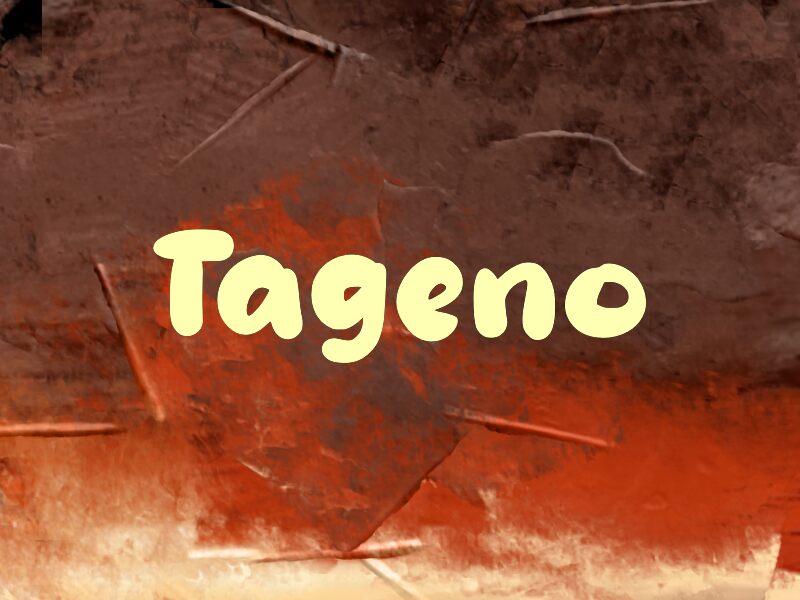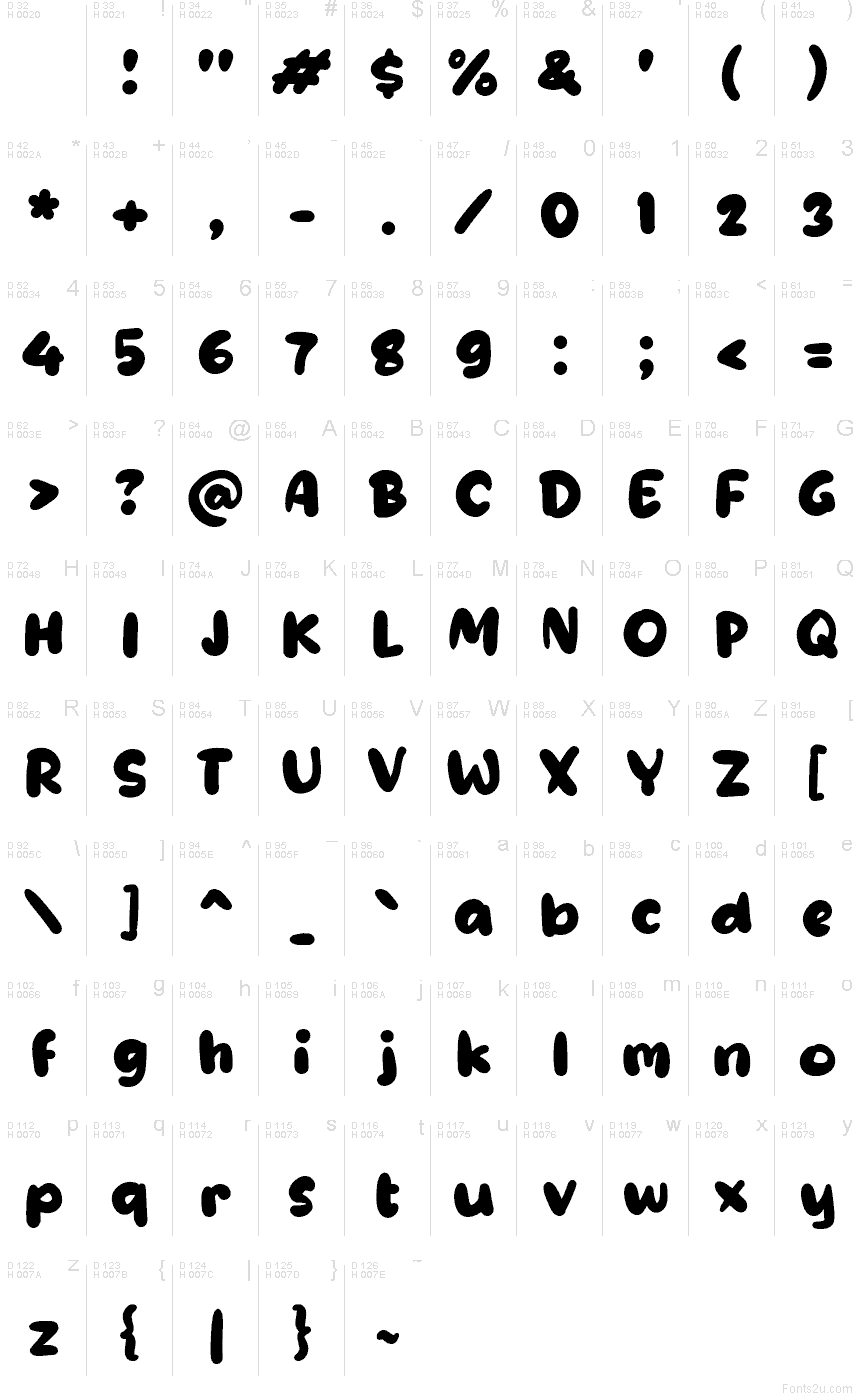
Tageno
Tageno font by Wahyu Eka Prasetya of wep is a free cartoon font with chunky, ink-blobby shapes that feel hand-squeezed and friendly. The rounded strokes and bouncy rhythm keep it loud without getting sharp, so your words read like they’re smiling. It’s the kind of lettering that turns a plain title into something you can almost poke.
Using Tageno, you’ll get cheerful impact on kids’ packaging, playful logos, snack labels, YouTube thumbnails, sticker designs, classroom posters, and app splash screens. Set it a touch large and give it breathing room—the soft forms like space to bounce. Pair this free font with a clean geometric sans for body copy to keep the fun upfront and the details easy to scan.